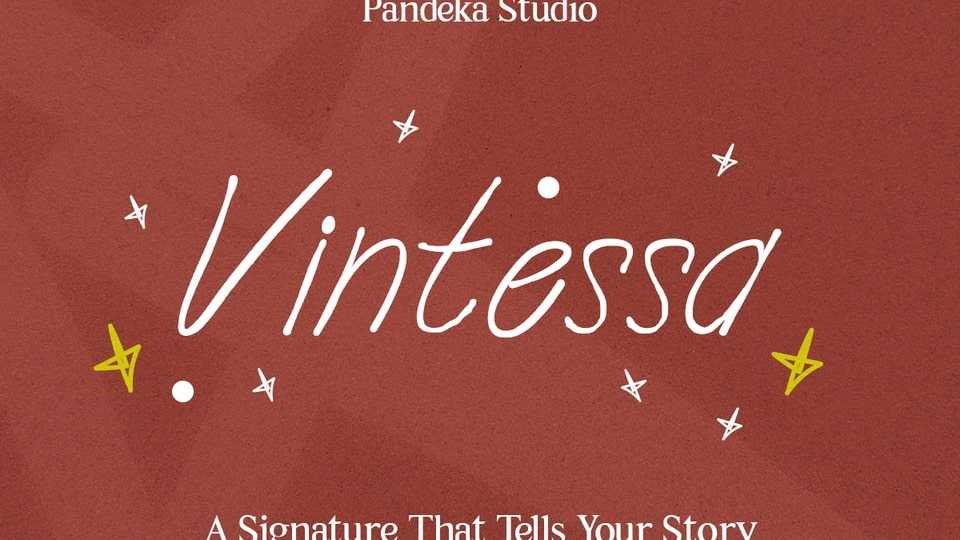
Download Vintessa font, an elegant signature script typeface with a natural handwritten feel, perfect for stylish calligraphy, modern branding, and timeless designs.